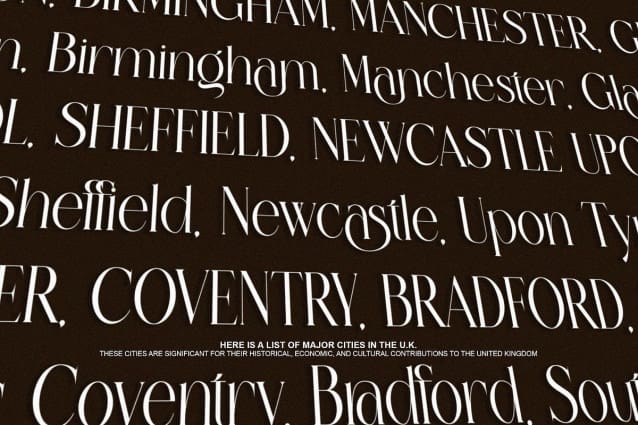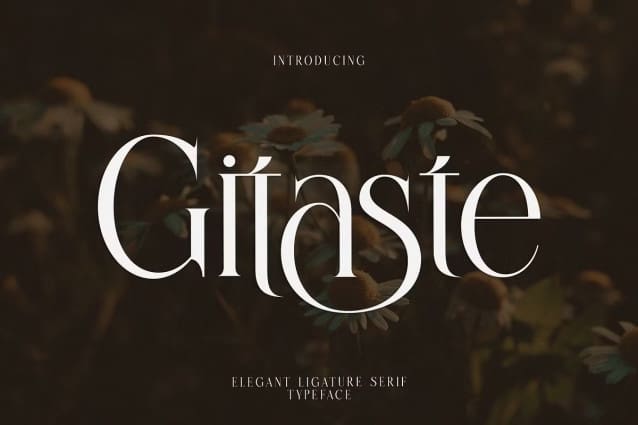
Gitaste Font
Gitaste Font, a serif modern font that captures a sense of freedom and natural beauty. Inspired by soft, rolling landscapes and golden hues, Brolin is a font that feels both grounded and graceful. With its fluid ligatures and balanced curves, this typeface brings an effortless elegance to any design. Whether you’re creating feminine branding or adding a delicate touch to your typography, Gitaste Font is the perfect choice for those who value both simplicity and style.
Let your designs flow with ease and sophistication. Try Gitaste today, and see how this font adds warmth and harmony to your creative projects.